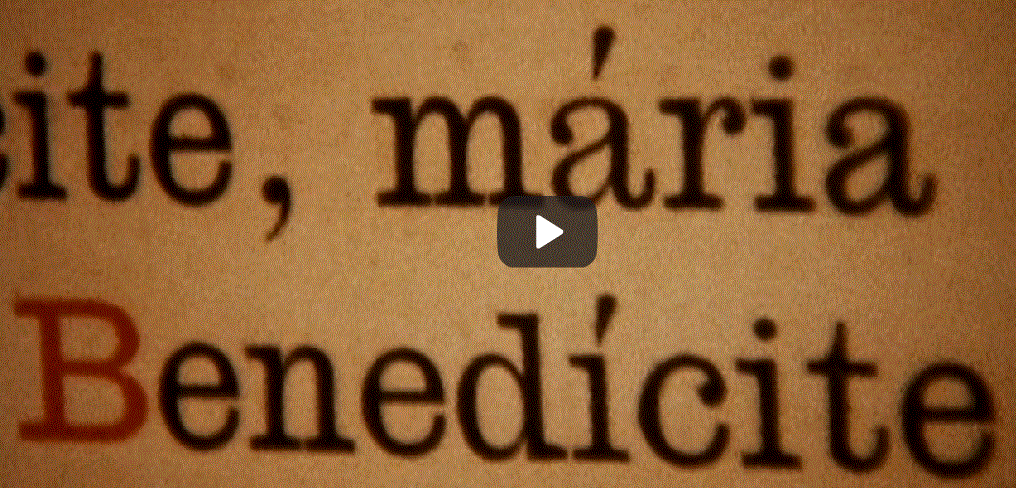
Help identifying typeface?
Can anyone help identify this typeface? I've run a scan through WhatFontIs and the closest seem to be American Typewriter and Monotype Ionic. But neither of those is an actual match. American Typewriter lacks any brackets, which are clearly present and Monotype Ionic is clearly thinner and has more stroke contrast. Probably a long shot, but thanks if anyone has an idea!
It is very close to Century Expanded or Century, albeit not identical to the digital version. Besides the extra weight added by the letterpress printing, there are often subtle differences in different sizes of metal type that are missing in the one-size-scales-to-all digital versions. (Also, the acute accent is quite different, but that's not unusual.)
Also very close to Clarendon in one or another of its many renditions.